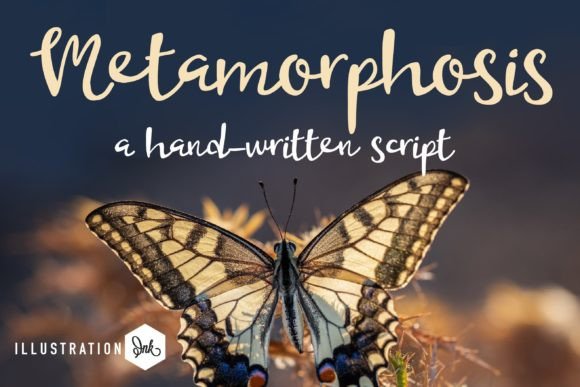
Embark on a typographic journey with Metamorphosis Font, the captivating script font family that adds a touch of whimsy and charm to any project. This font, birthed from the creative genius of Illustration Ink, captures the essence of handwritten beauty, instantly infusing your designs with a natural, heartfelt feel.
Metamorphosis Font is more than just a collection of letters; it's an expression of individuality and creativity. Its lively, meandering strokes create a visual symphony that dances across your designs, evoking a sense of playfulness and spontaneity. This font is not just a tool; it's an art form, ready to transform your projects into masterpieces.
Step into a world of creative possibilities with Metamorphosis Font. Its versatile nature makes it the perfect choice for a myriad of design endeavors. Whether you're crafting websites, creating enchanting SVG designs, or adding a touch of warmth to your home décor, this font is your trusty companion. It's perfect for branding, blogs, logos, invitations, and more, effortlessly elevating your creations and leaving a lasting impression.
Let Metamorphosis Font be the star of your designs, captivating your audience with its playful charm. This font is not just a collection of glyphs; it's an extension of your creativity, a gateway to a world of unique and captivating designs. Experience the magic of Metamorphosis Font today and watch your projects come to life with a touch of handwritten elegance.